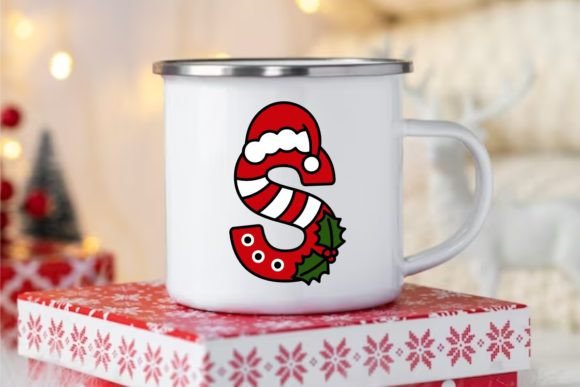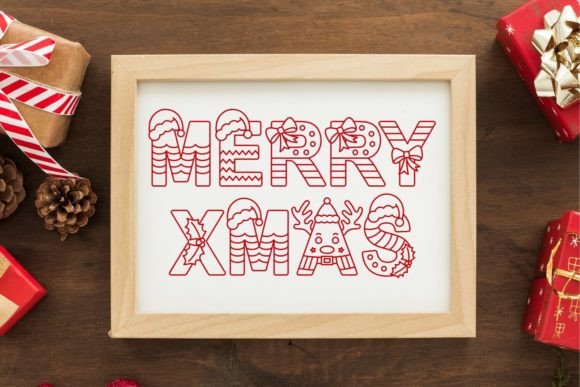
New Born Christmas Font
Meet “New Born Christmas,” the perfect font to infuse your holiday projects with adorable festive charm. This cute decoration Christmas font brings a playful and jolly spirit to your designs, making it ideal for holiday cards, gift tags, and seasonal decorations. With whimsical details and a touch of festive magic, New Born Christmas adds a delightful flair to your Christmas-themed creations. Embrace the joy of the season with this charming and heartwarming font.